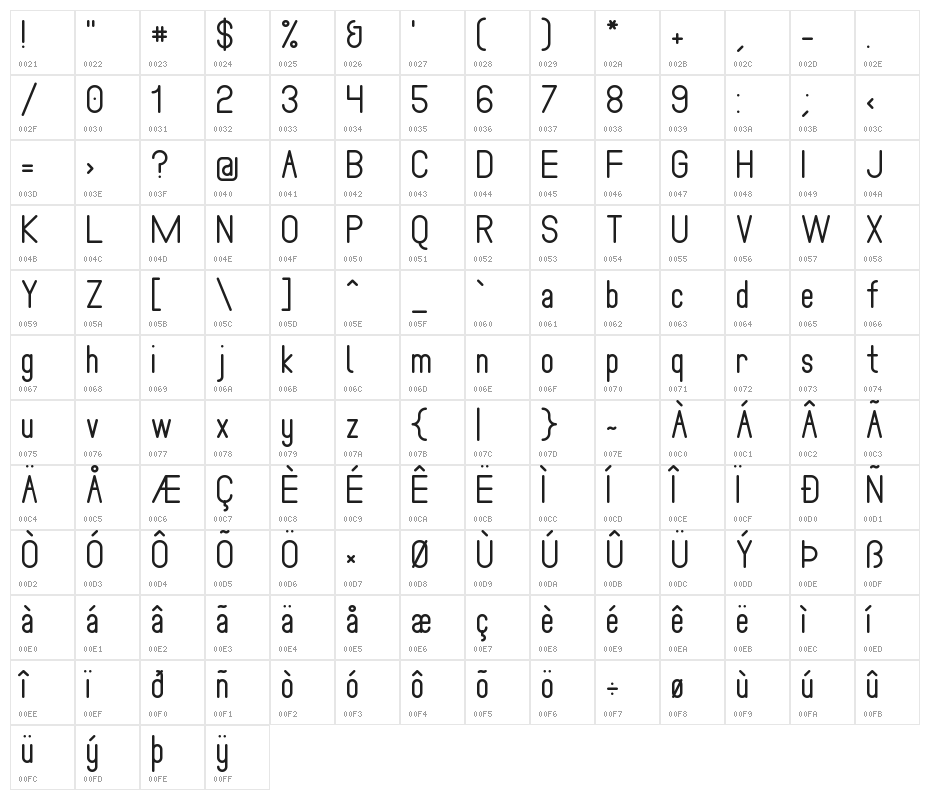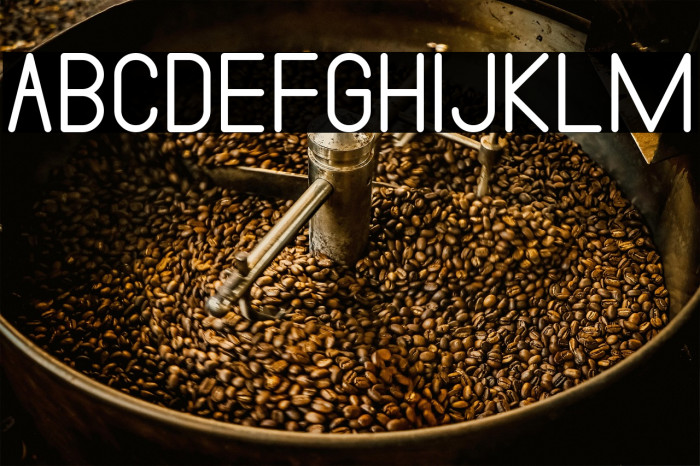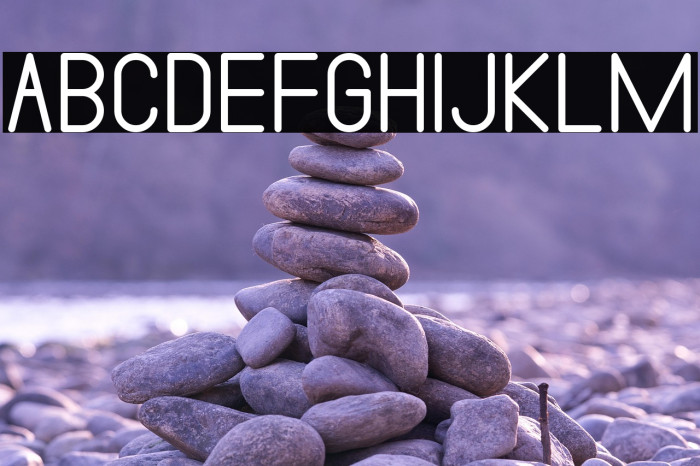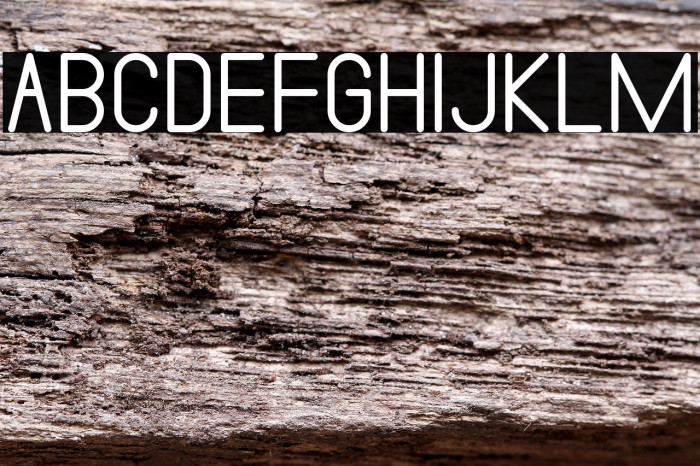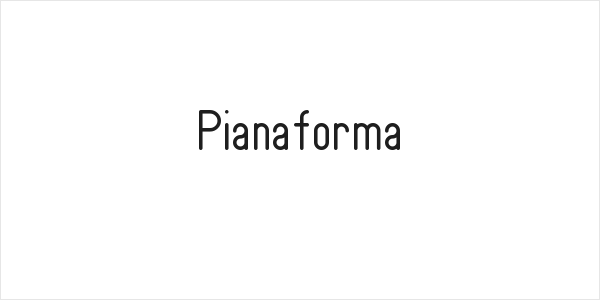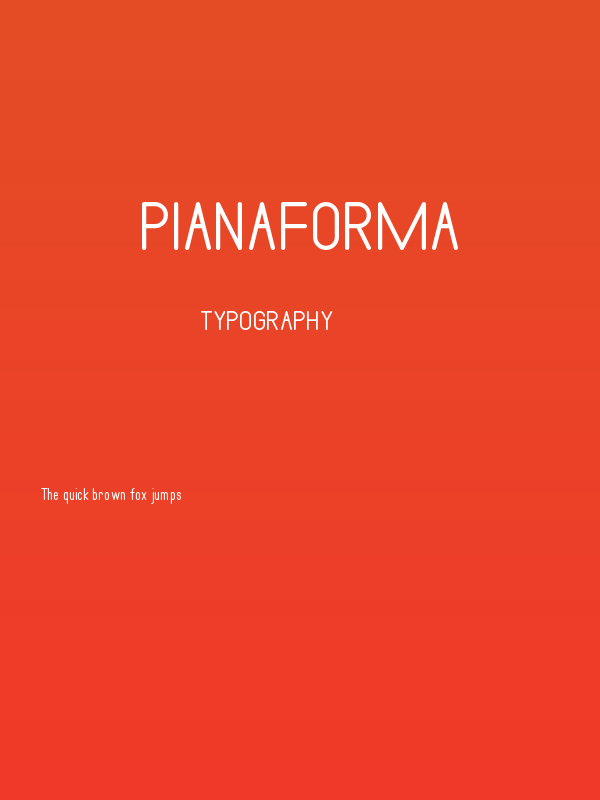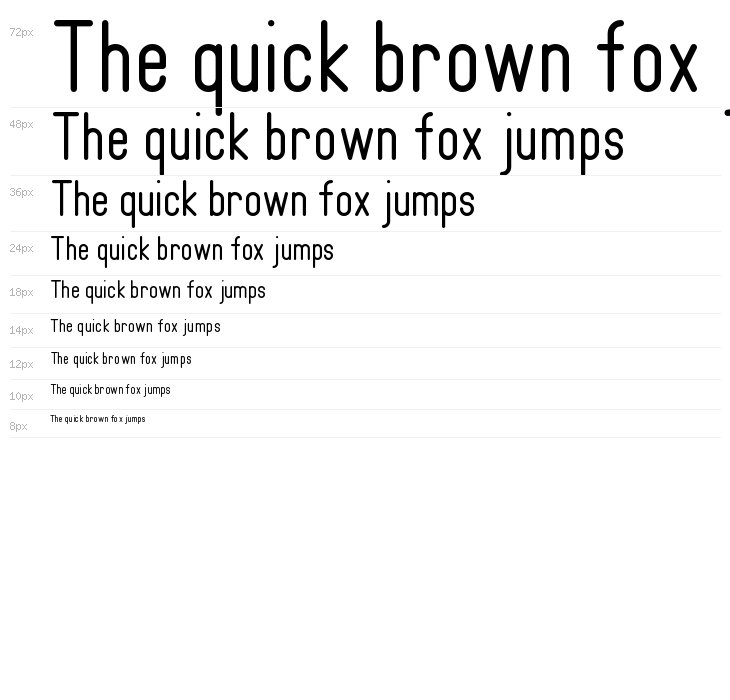
Pianaforma Font
Pianaforma Description
This font features a clean, modern sans-serif style with rounded edges that give it a friendly and approachable appearance. The characters are evenly spaced, contributing to excellent readability. The uppercase and lowercase letters maintain a consistent height and width, creating a harmonious visual flow. Numbers and special characters are designed with the same rounded and open structure, ensuring uniformity across all elements. The overall design is minimalistic yet versatile, making it suitable for a wide range of applications.
| Proposed Projects | Ideal for branding, web design, user interfaces, and print media where a modern and approachable look is desired. |